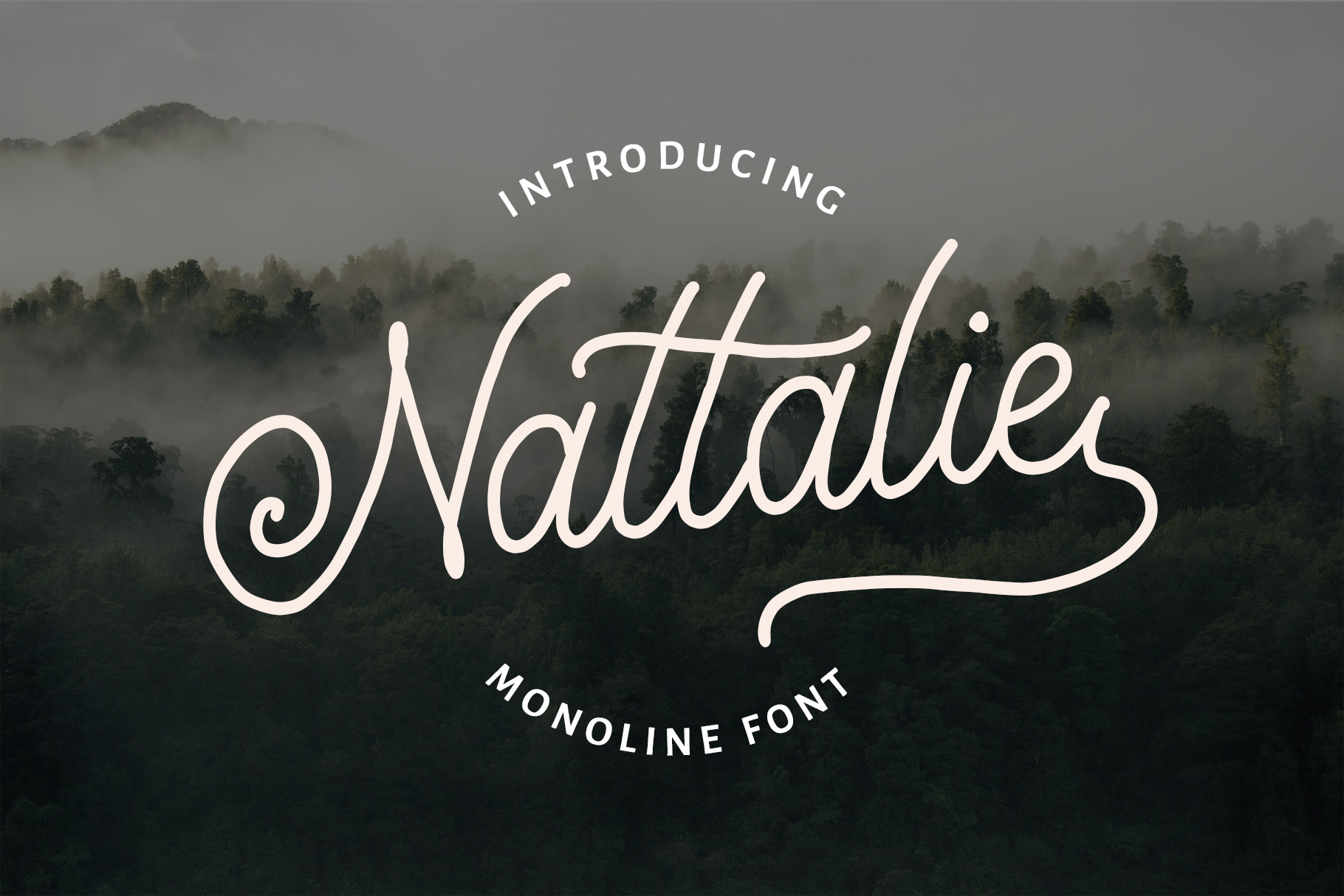
Nattalie Monoline Font
Nattalie Monoline Font is typeface was inspired by handwriting using pen. This font is suitable for wedding invitations, design, logo or branding, or as the font for the typography. Many features in this font such as ligatures, stylistic alternate, swashes, etc.